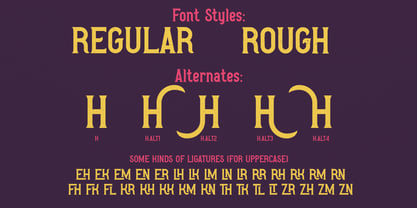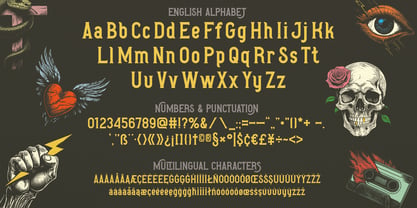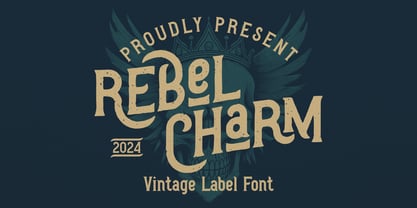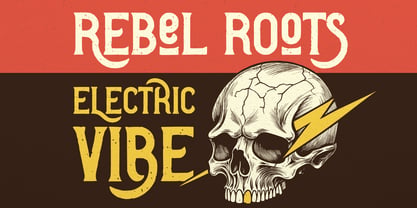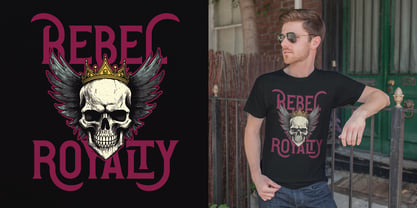
Rebel Charm
by Vozzy
The Rebel Charm Font Family was designed by Oleg Voznyy and published by Vozzy. Rebel Charm contains 2 styles and family package options. More about this family
Introducing vintage label font named Rebel Charm. This font family has an additional characters and multilingual support (check out all available characters on preview), also this typeface has a lot of alternates and some ligatures. The font family has two styles: Regular and Rough. This font will look good on any vintage styled designs like a poster, T-shirt, label, logo, etc.
Designers: Oleg Voznyy
Foundry: Vozzy